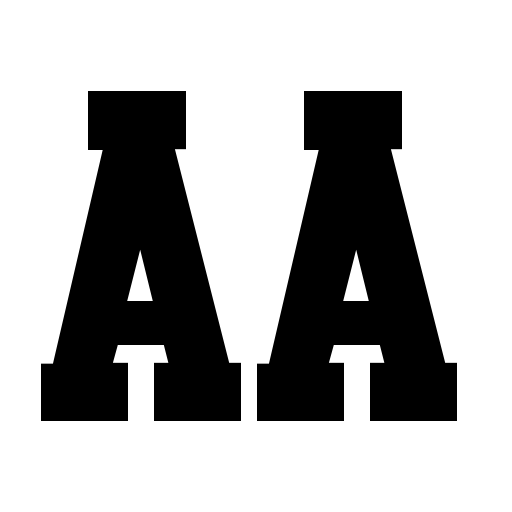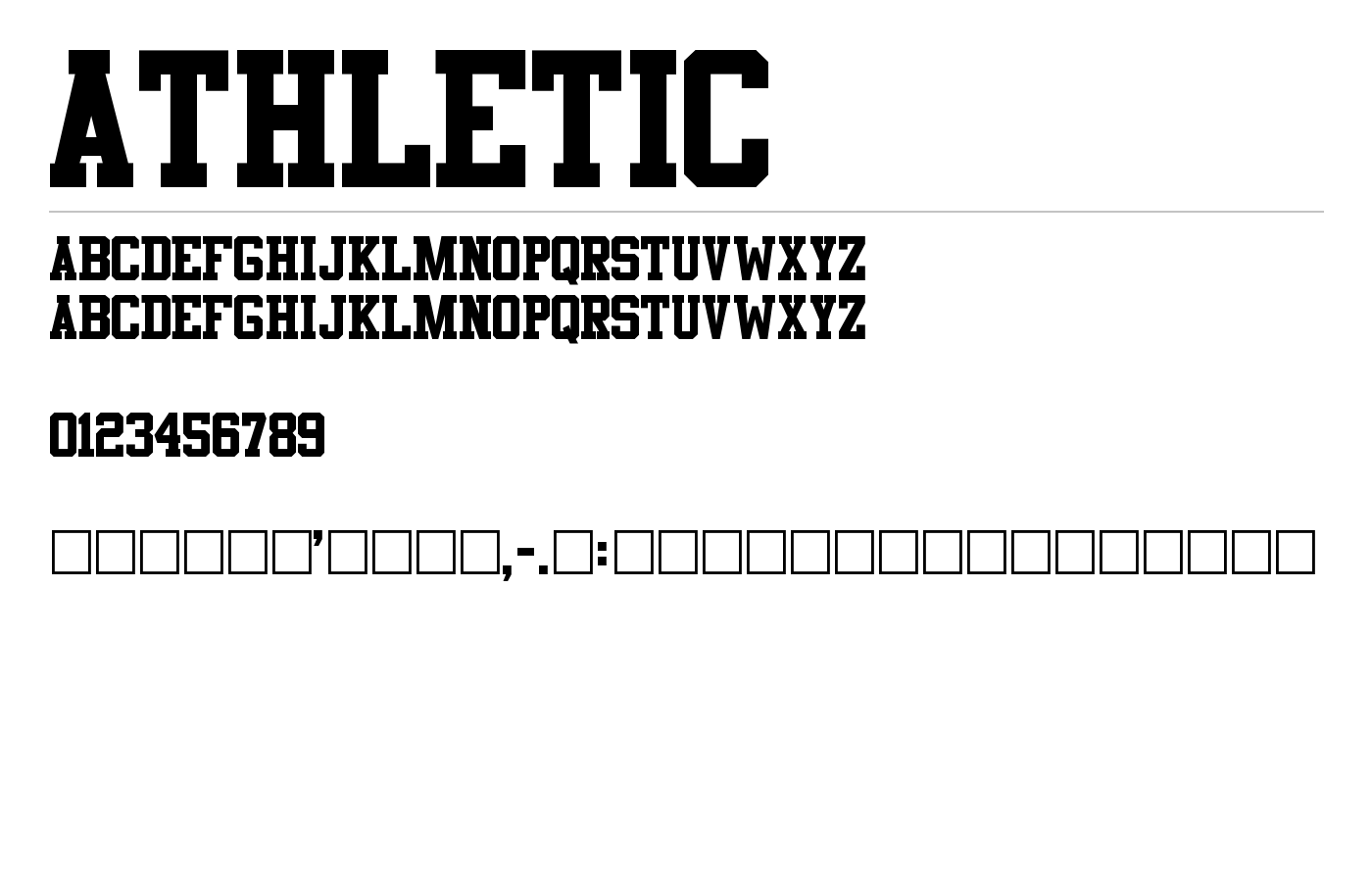
Athletic Font is a bold, condensed slab serif typeface with strong, blocky letterforms that evoke a classic, collegiate sports vibe. Its heavy weight and sharp, squared serifs make it perfect for impactful headlines, posters, and branding in athletic or vintage contexts where a powerful and energetic look is desired. This font stands out with its commanding presence and straightforward style, making it a great choice for sports team logos and event promotions.
Athletic Font
About Athletic Font